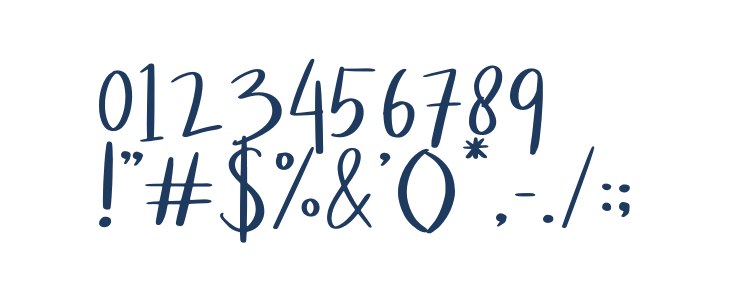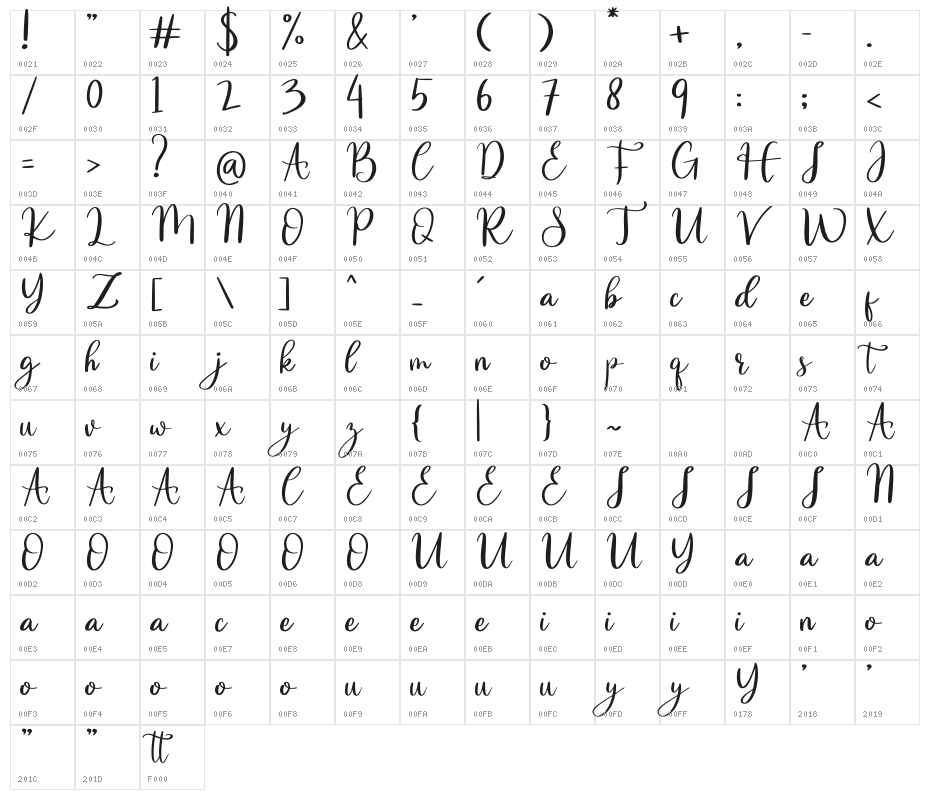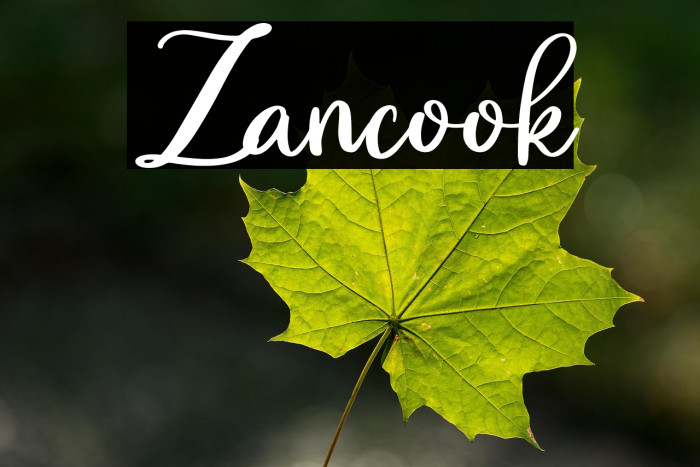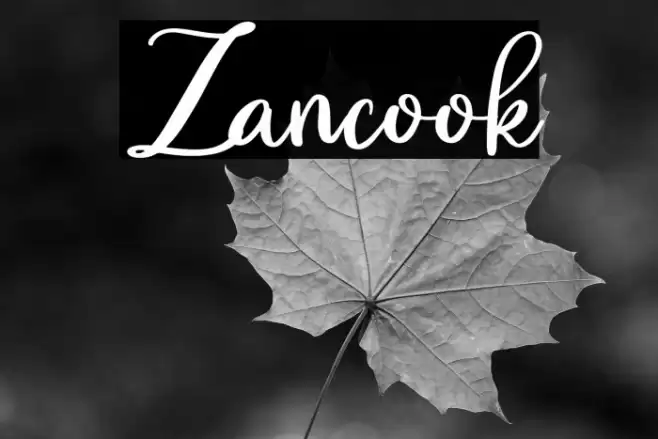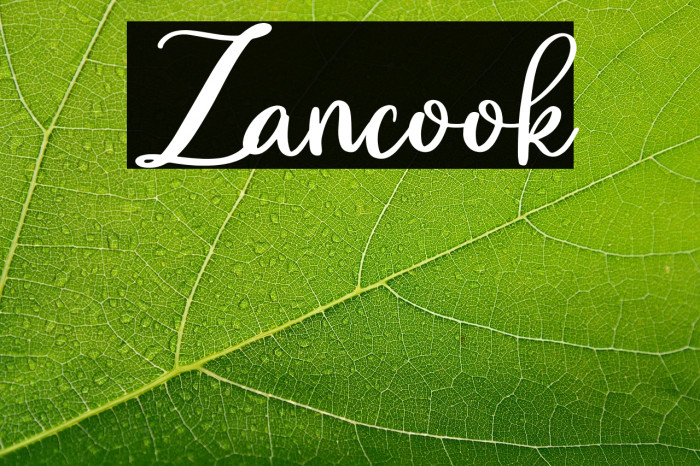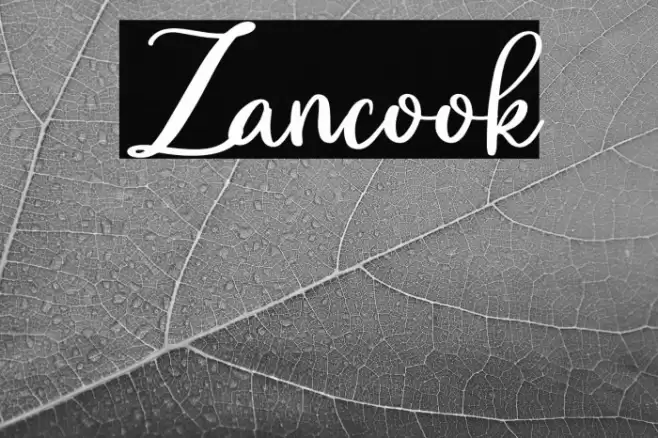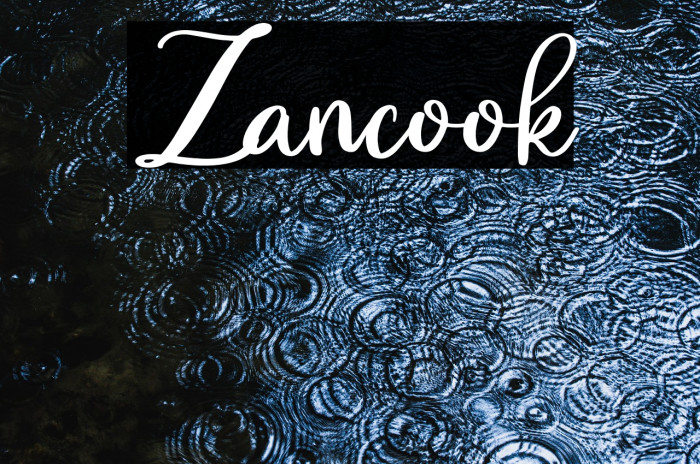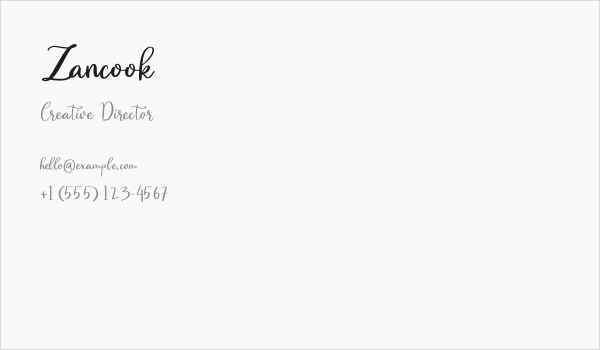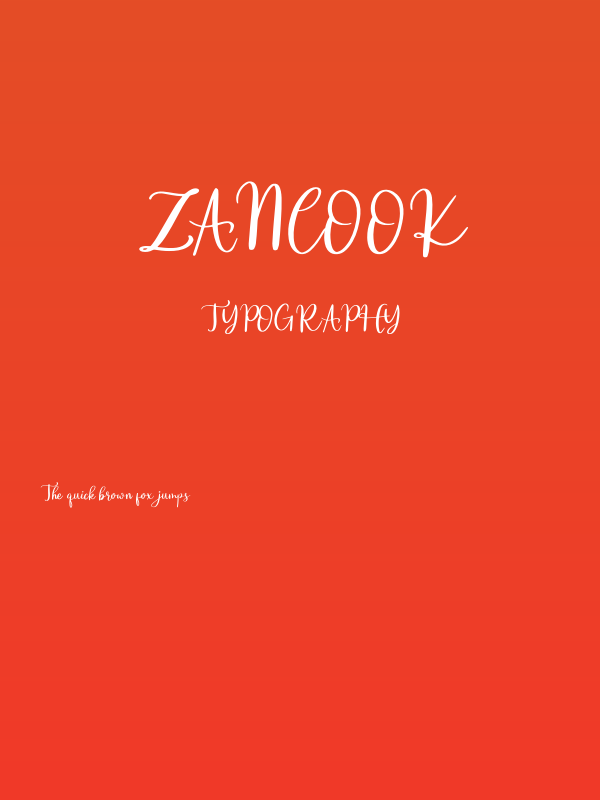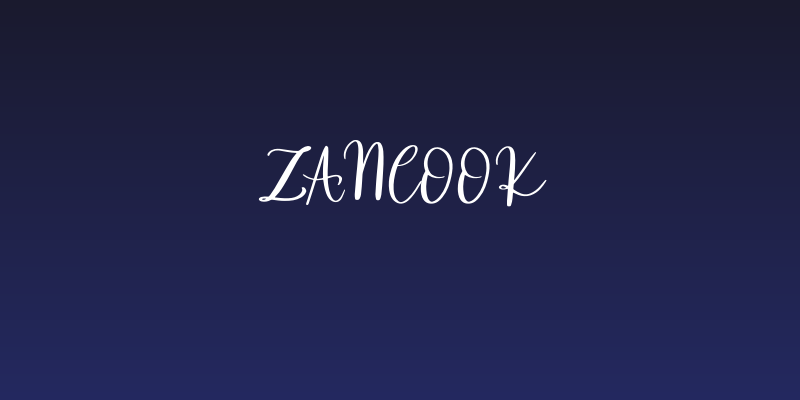
Zancook Font
Zancook Description
This font features a lively and expressive script style, characterized by its flowing and interconnected letterforms. The uppercase letters exhibit a graceful elegance, with each character maintaining a consistent height and smooth curves. The lowercase letters are more dynamic, with playful loops and swashes that add a sense of movement and personality. The numerals are bold and slightly slanted, complementing the overall script style. Special characters are creatively designed, maintaining the font's whimsical and artistic flair. This font's unique style makes it suitable for creative and artistic projects.
| Proposed Projects | Ideal for wedding invitations, greeting cards, branding, and artistic projects that require a personal touch. |